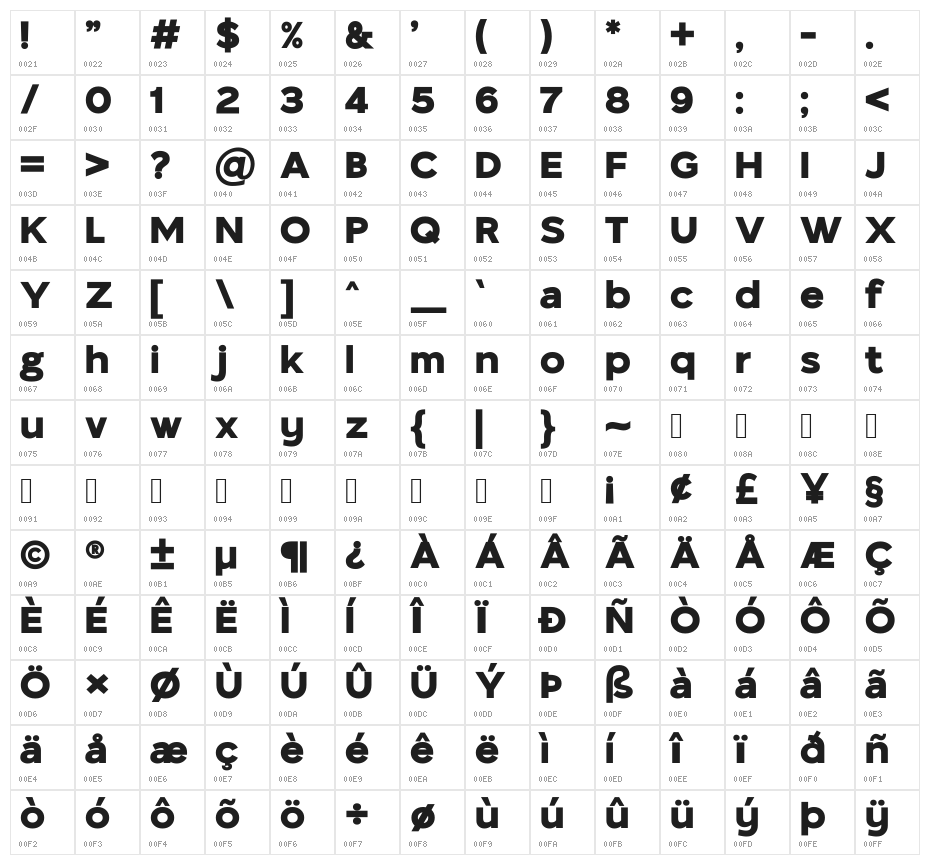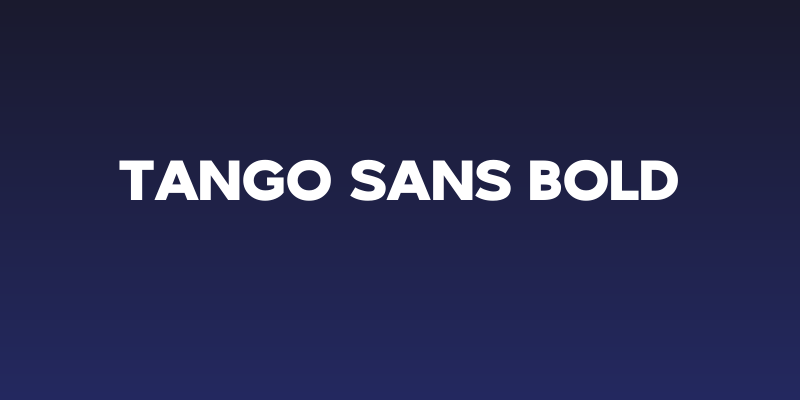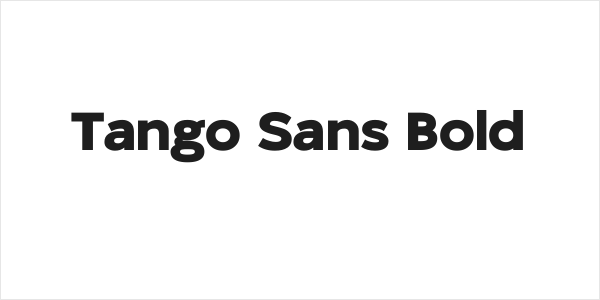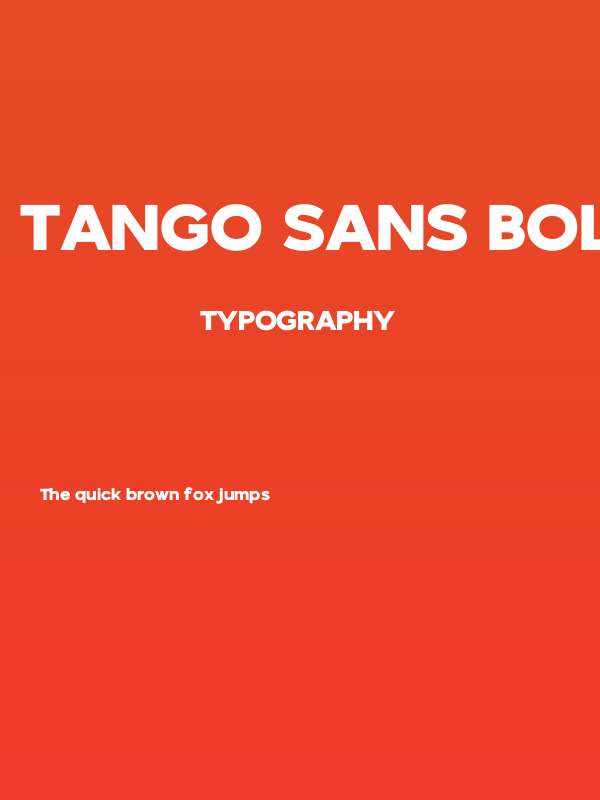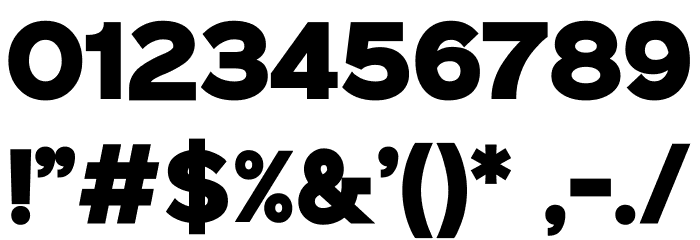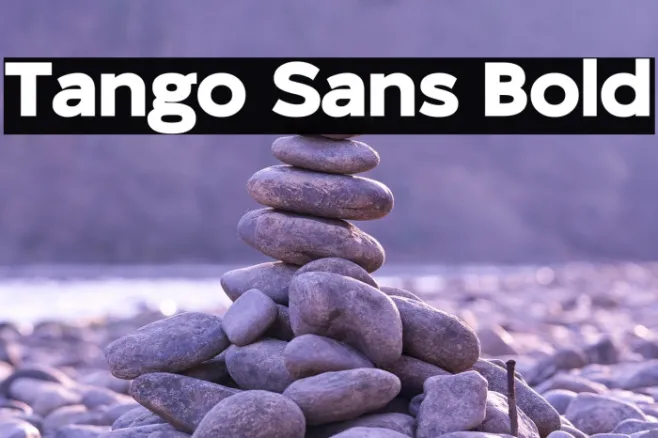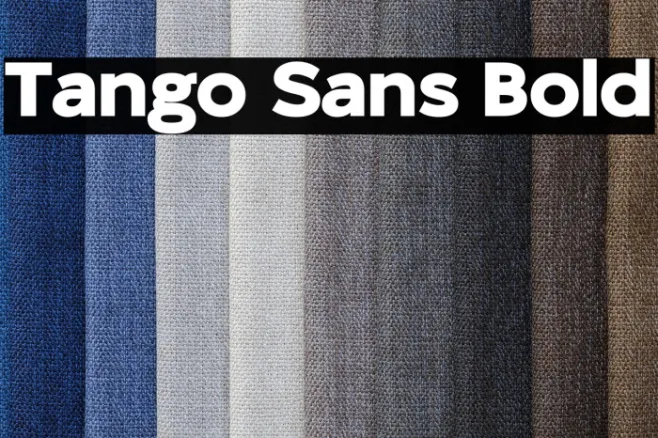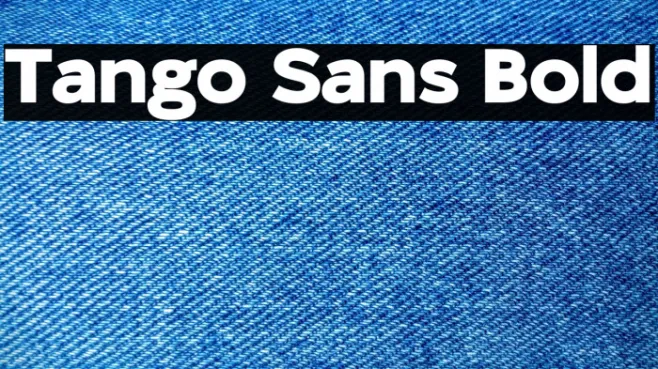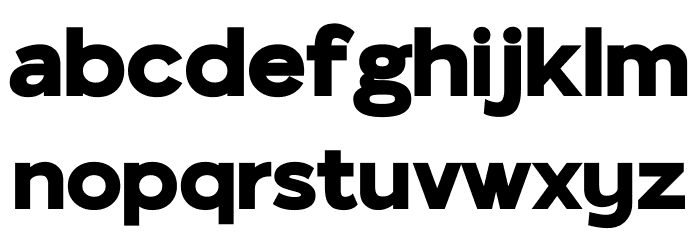
Tango Sans Bold Font
Tango Sans Bold Description
This typeface features a bold and modern sans-serif design, characterized by clean lines and a strong geometric structure. The characters are evenly weighted, providing a uniform appearance that enhances readability. The uppercase letters are robust and commanding, while the lowercase letters maintain a friendly and approachable feel. The numerals are clear and distinct, making them suitable for a variety of applications. Special characters are well-defined, ensuring versatility in usage. This font's simplicity and clarity make it ideal for contemporary design projects.
| Proposed Projects | Ideal for branding, advertising, headlines, and digital interfaces. |